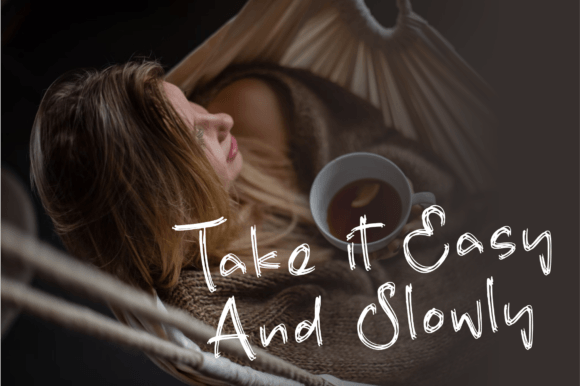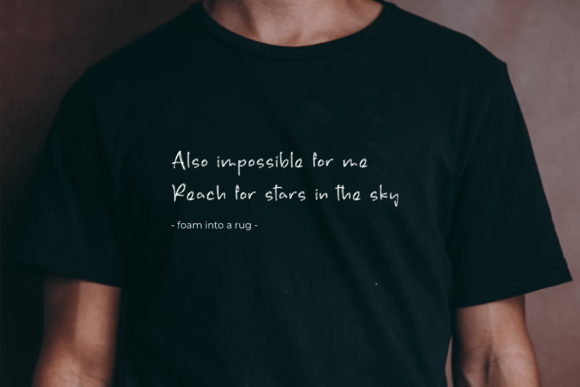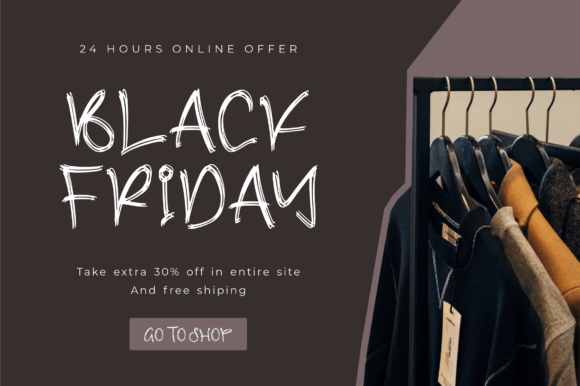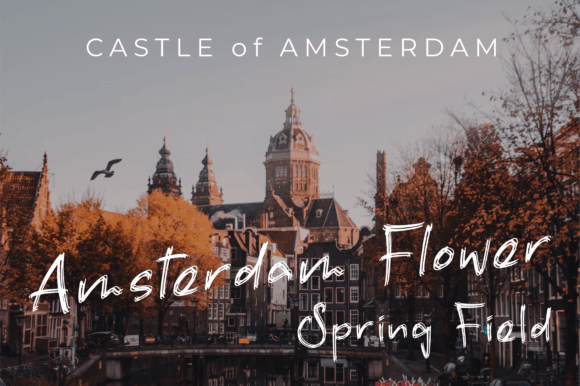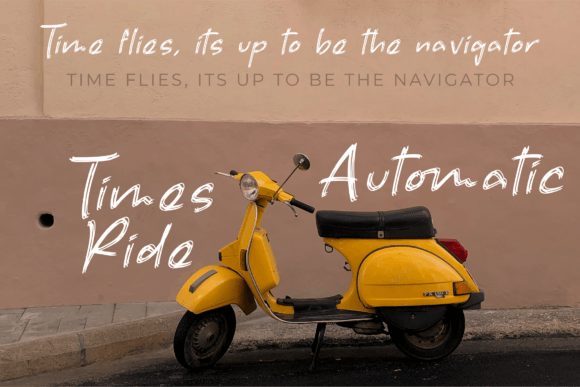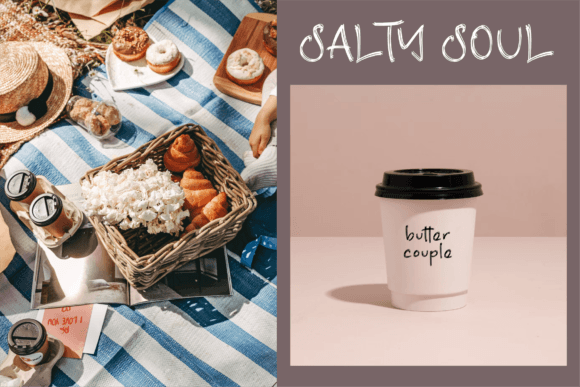
Introduction to Honystile Font
Have you ever stumbled upon the perfect font for a project, only to find that it’s no longer available? It’s a frustrating experience that can derail even the most creative of projects. But what if I told you about a game-changing font that’s not only beautiful but also free to download?
Meet the Honystile Font, a modern and elegant script font that’s perfect for a wide range of creative projects. Whether you’re designing logos, branding materials, or even homeware products, this font is sure to elevate your designs to the next level. With its high-quality design and transparent background, it’s a valuable resource for designers who demand only the best for their clients.
Key Features of Honystile Font
- High-quality design resource ideal for creative projects requiring a unique and stylish touch.
- Features a transparent background, allowing for seamless integration with custom designs and backgrounds.
- Designed with a modern and elegant aesthetic, making it perfect for use in logos, branding, and marketing materials.
Honest Review: Honystile Font
I recently stumbled upon the Honystile Font, a free download that’s quickly become a go-to design resource for my creative projects. At first glance, I was impressed by its high quality and unique style. ✨ The font’s versatility is a major plus, making it perfect for everything from branding to digital signage.
Here are some of the things that really stand out about the Honystile Font:
- Unique aesthetic that adds a touch of sophistication to any design
- Highly customizable, allowing for seamless integration into various design elements
- Includes a transparent background, making it easy to layer over other design elements
- Some users may find the font’s bold style overwhelming, particularly in smaller font sizes ⚠️
- Limited character set may not be suitable for extensive text-based projects
Overall, I’m thoroughly impressed with the Honystile Font. Its high quality and versatility make it a valuable addition to any designer’s toolkit. While it may have some limitations, it’s definitely worth checking out for your next creative project.
For the best results, use Honystile Font in conjunction with a transparent background to create a sleek and modern design. Experiment with different font sizes and styles to find the perfect balance for your creative project.
Honystile Font is ideal for a wide range of design projects, including logos, branding materials, and marketing materials. Its high quality and versatility make it a valuable design resource for designers and non-designers alike.